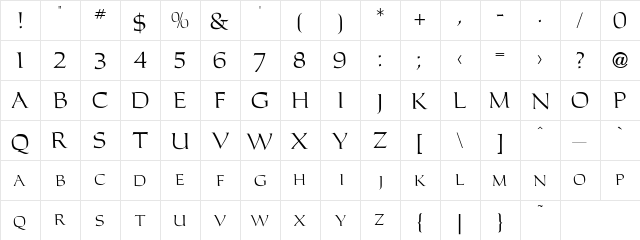
CaracubRomanFon Regular Font Preview
CaracubRomanFon Regular
Design Context for CaracubRomanFon Typeface
CaracubRomanFon offers clean, dependable letterforms without strong stylistic allegiance, making it a practical choice for designers who need flexibility.